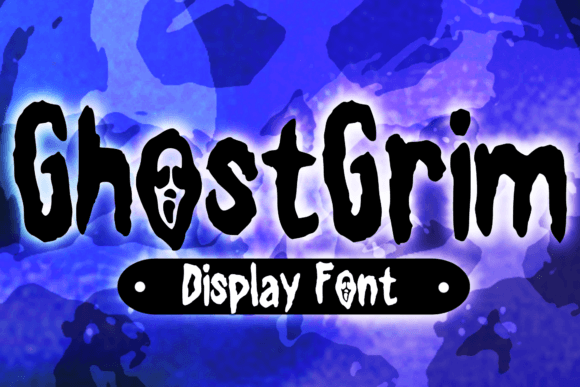
Unleash the Horror with Ghost Grim Font
As a designer, have you ever been brainstorming ideas for a horror-themed project, only to be met with a blank slate and a lack of inspiration? We’ve all been there. But what if I told you there’s a font that can transport you straight to the dark alleys of 80s horror movies and the eerie pages of vintage comic books?
Introducing Ghost Grim Font, a chillingly cool typeface designed to bring a touch of horror to your designs. Perfect for Halloween enthusiasts, horror fans, and designers looking to add a spooky twist to their projects, Ghost Grim Font is a versatile and versatile tool that can be used for anything from merchandise to book designs, greeting cards, and more.
With Ghost Grim Font, designers can tap into the nostalgia of vintage horror and create designs that are both retro and hauntingly modern. Its value lies in its ability to evoke a sense of eeriness and foreboding, making it a must-have for anyone looking to create memorable and chilling designs.
Ghost Grim Font Key Features
- Font Family: Ghost Grim is a unique, hand-drawn font designed for horror and thriller genres.
- Unique Characteristics: Features a distressed, grungy aesthetic with uneven letterforms and subtle texture, adding to its horror theme.
Ghost Grim Font Review
I was excited to dive into the world of Ghost Grim Font, and I’m happy to share my honest thoughts on this unique font.
- Ghost Grim Font has a distinctive and eerie aesthetic that’s perfect for horror or suspenseful projects.
- The font’s irregularities and imperfections give it a hand-drawn feel that’s hard to replicate with more traditional fonts.
- The font is highly customizable, allowing users to adjust the level of distortion and grit to suit their needs.
- The font’s complexity can be overwhelming, especially for users who are new to font design.
- The font may not be suitable for large blocks of text, as the irregularities can make it difficult to read.
- The font’s distortion effects can sometimes be overdone, leading to a messy or chaotic appearance.
Ghost Grim Font is a bold and eye-catching choice for designers looking to add some edge to their projects. While it may have some limitations, the font’s unique aesthetic and high level of customization make it a great option for the right project. With some practice and patience, designers can unlock the full potential of this haunting font.
Tips for Getting the Most Out of Ghost Grim Font
The Ghost Grim font is perfect for creating a spooky or mysterious atmosphere in your designs. Here are some tips for getting the most out of it:
- Use it for titles or headings to create a bold and attention-grabbing effect.
- Pair it with other fonts to create a unique and eye-catching typography.
- Experiment with different font sizes and styles to create a sense of depth and dimension.
The Ghost Grim font is perfect for:
- Choose a dark, muted color palette to complement the font’s Gothic flair.
- Experiment with layering textures, such as grunge or wood grain, to add depth and visual interest.
- Combine the font with bold, abstract shapes to create a sense of tension and unease.
- Select a bold, eye-catching color scheme that complements the font’s Gothic aesthetic.
- Experiment with different text arrangements, such as overlapping or skewed text, to create a sense of disorientation.